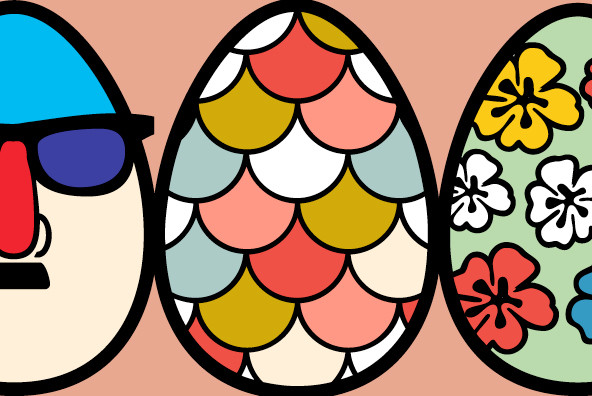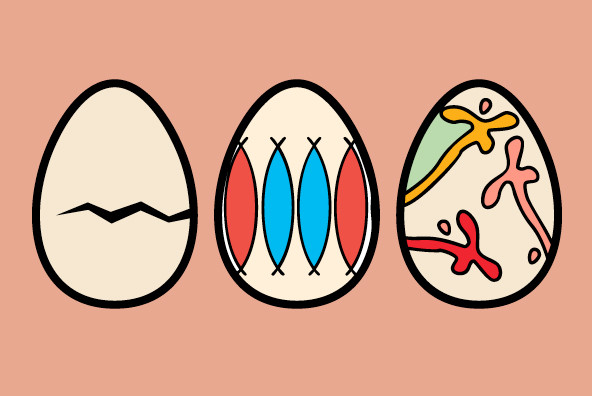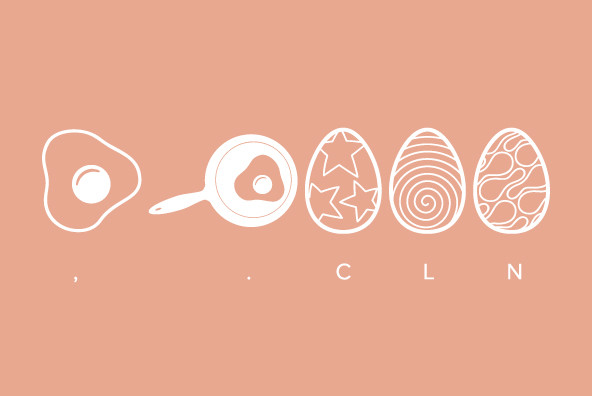
Egg Hunt
Egg Hunt is a dingbat typeface loaded with all sorts of egg imagery, from easter egg designs to cracked and fried eggs on a skillet. A fun and friendly typeface, offering easy coloring features, perfect for easter holiday parties.